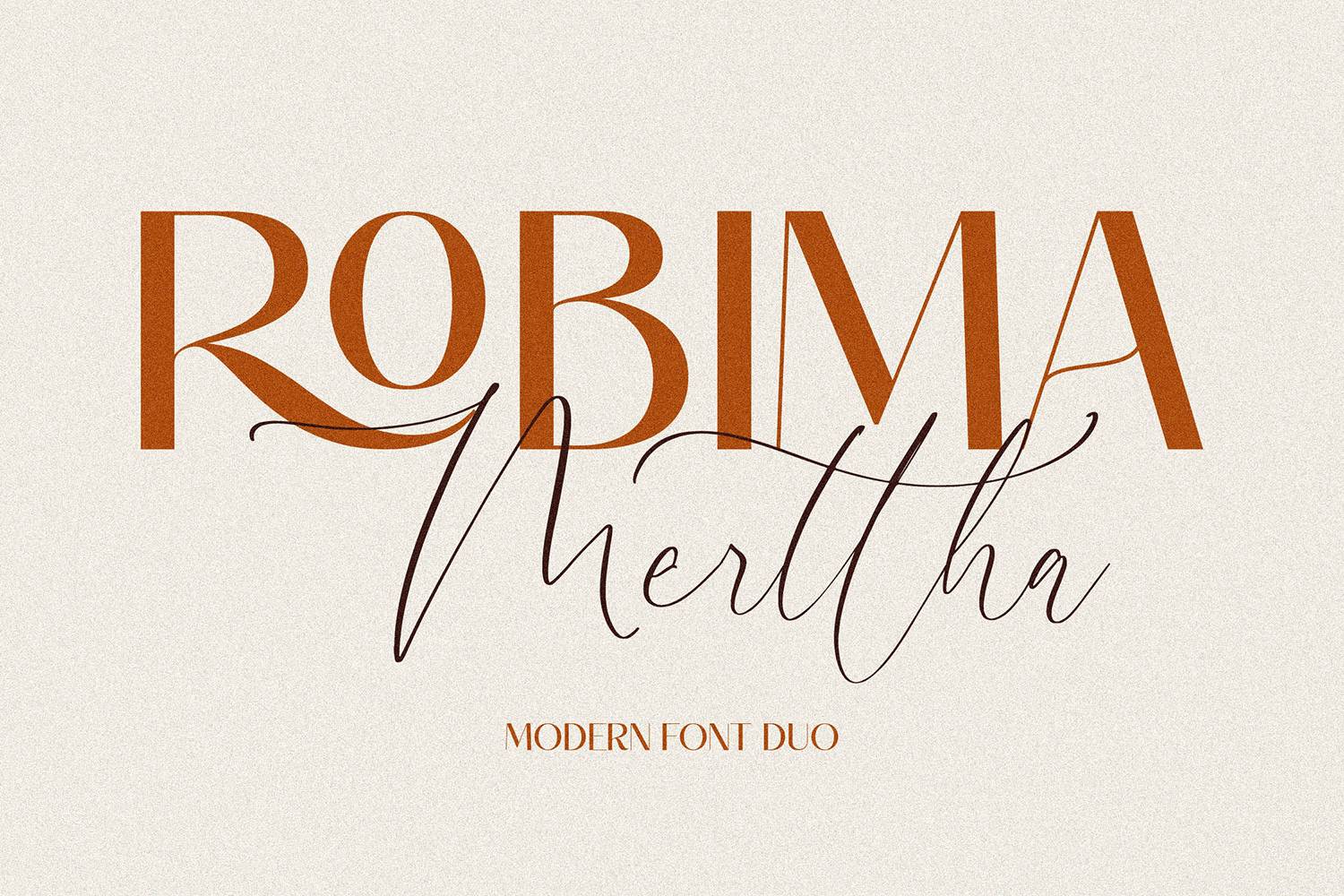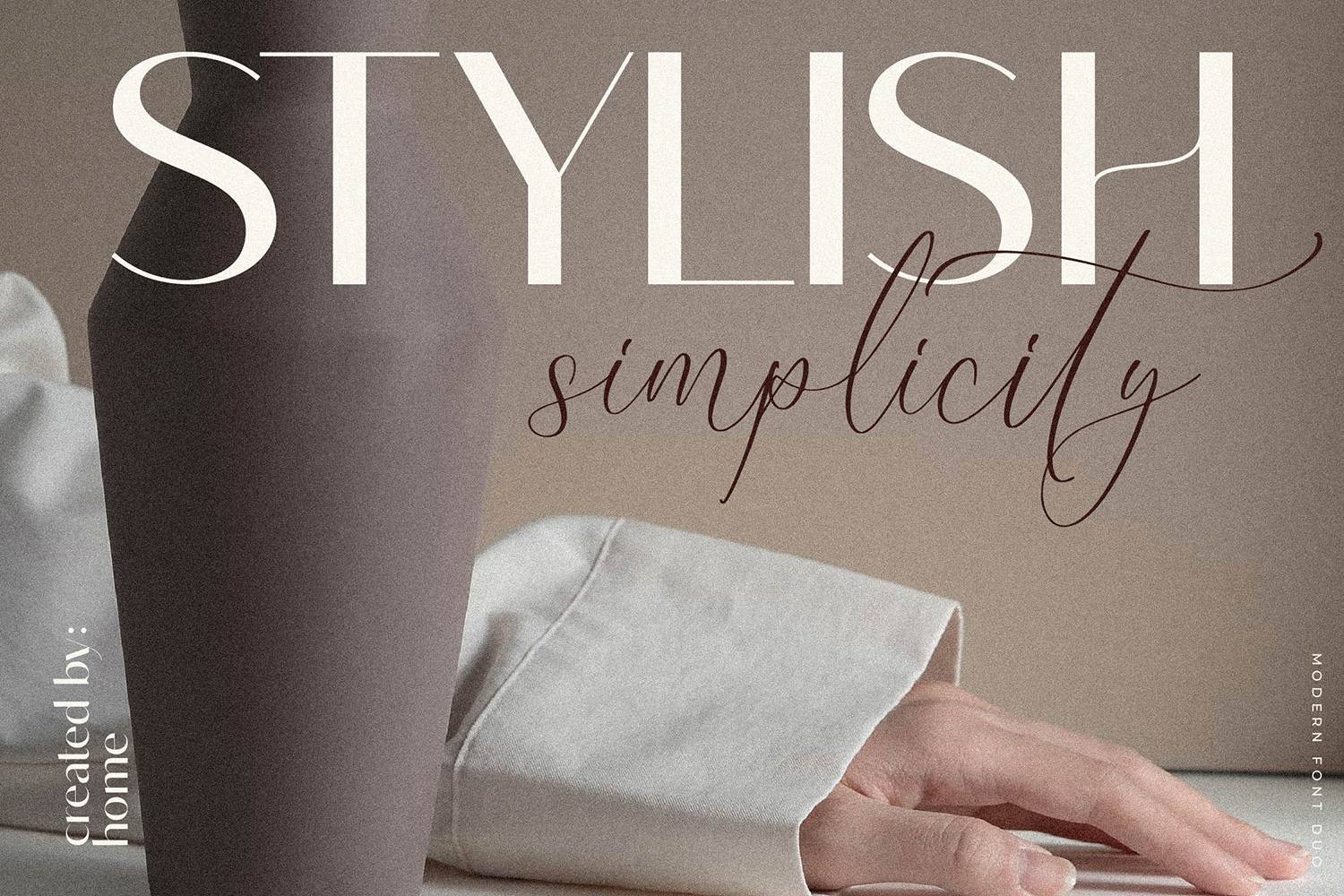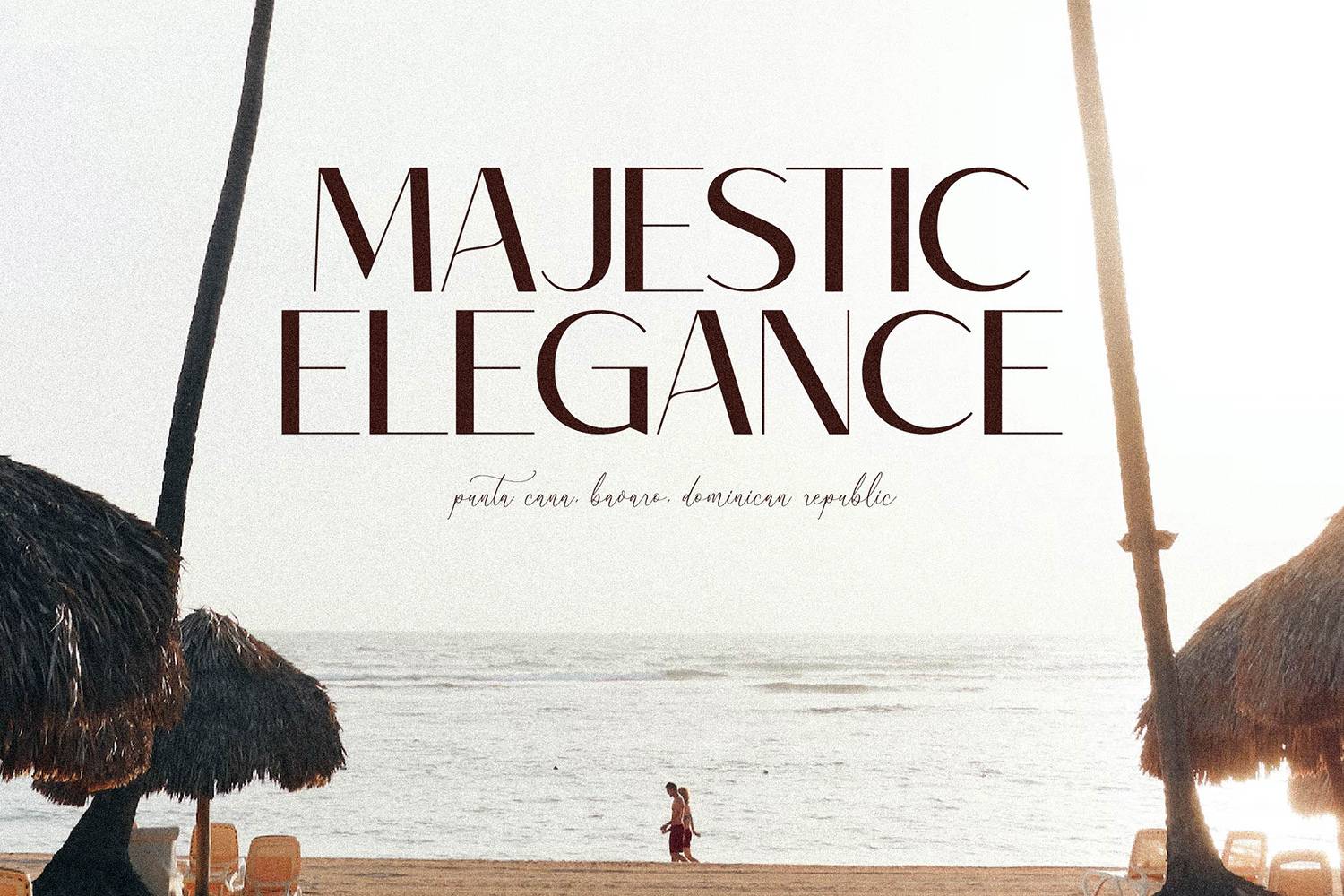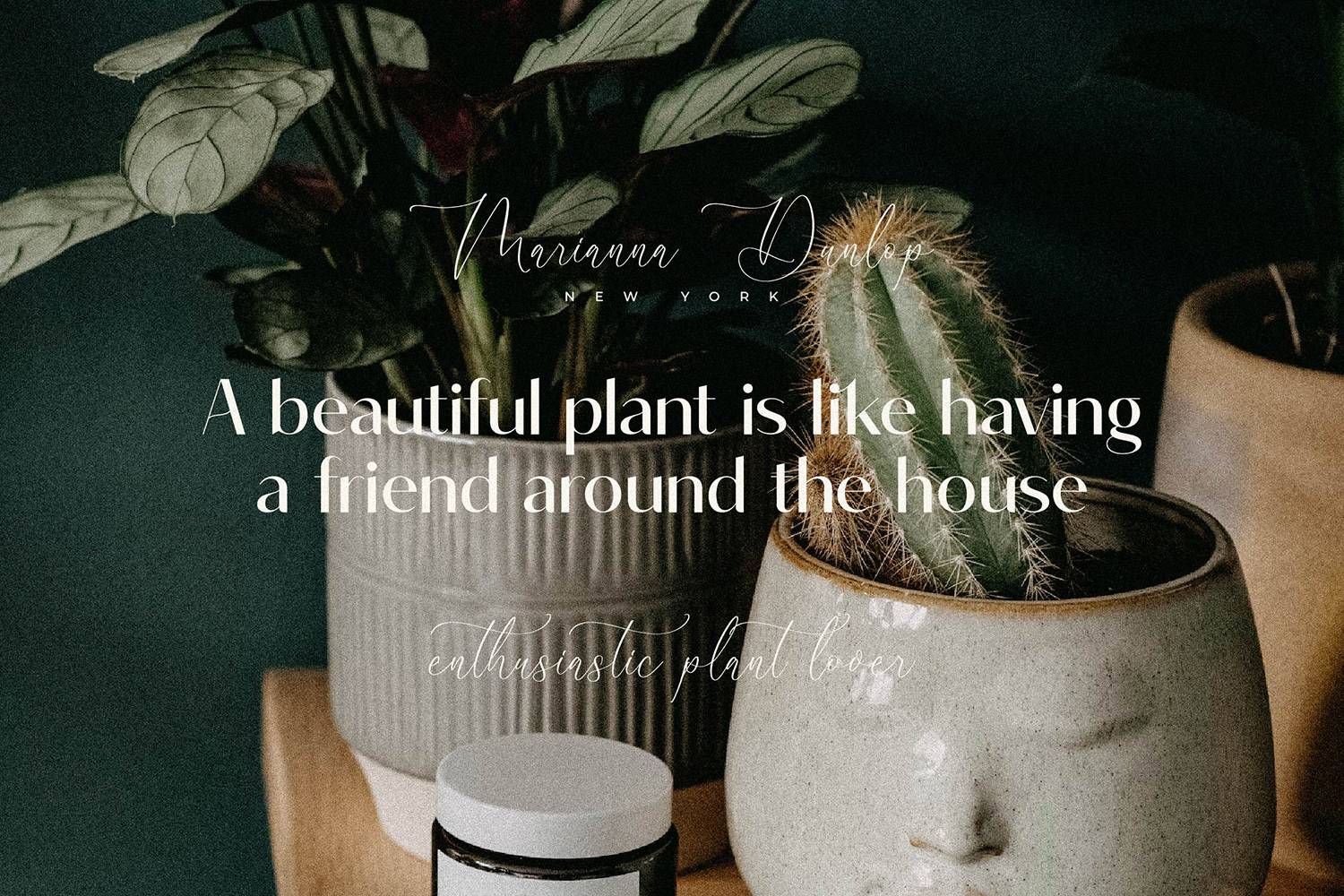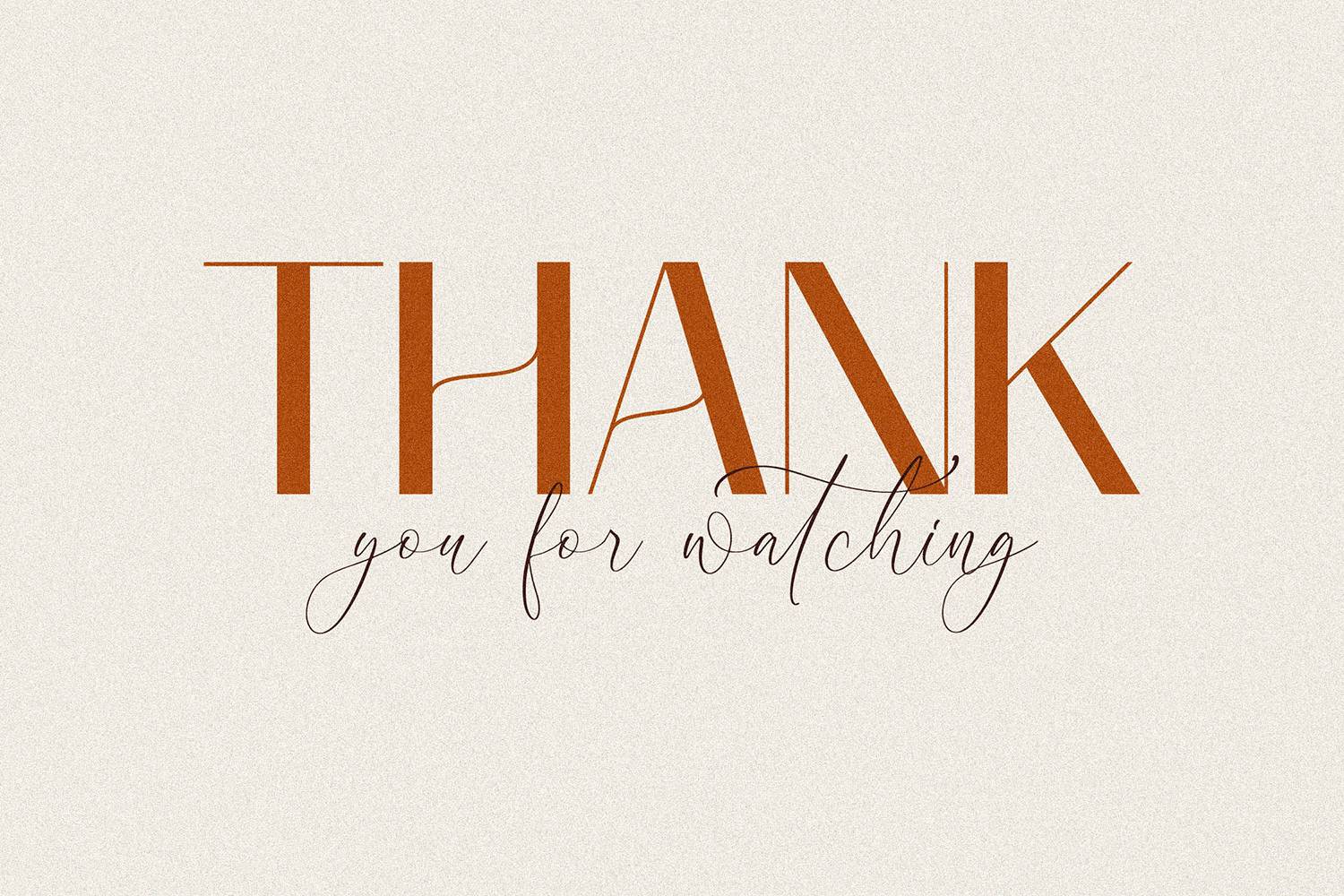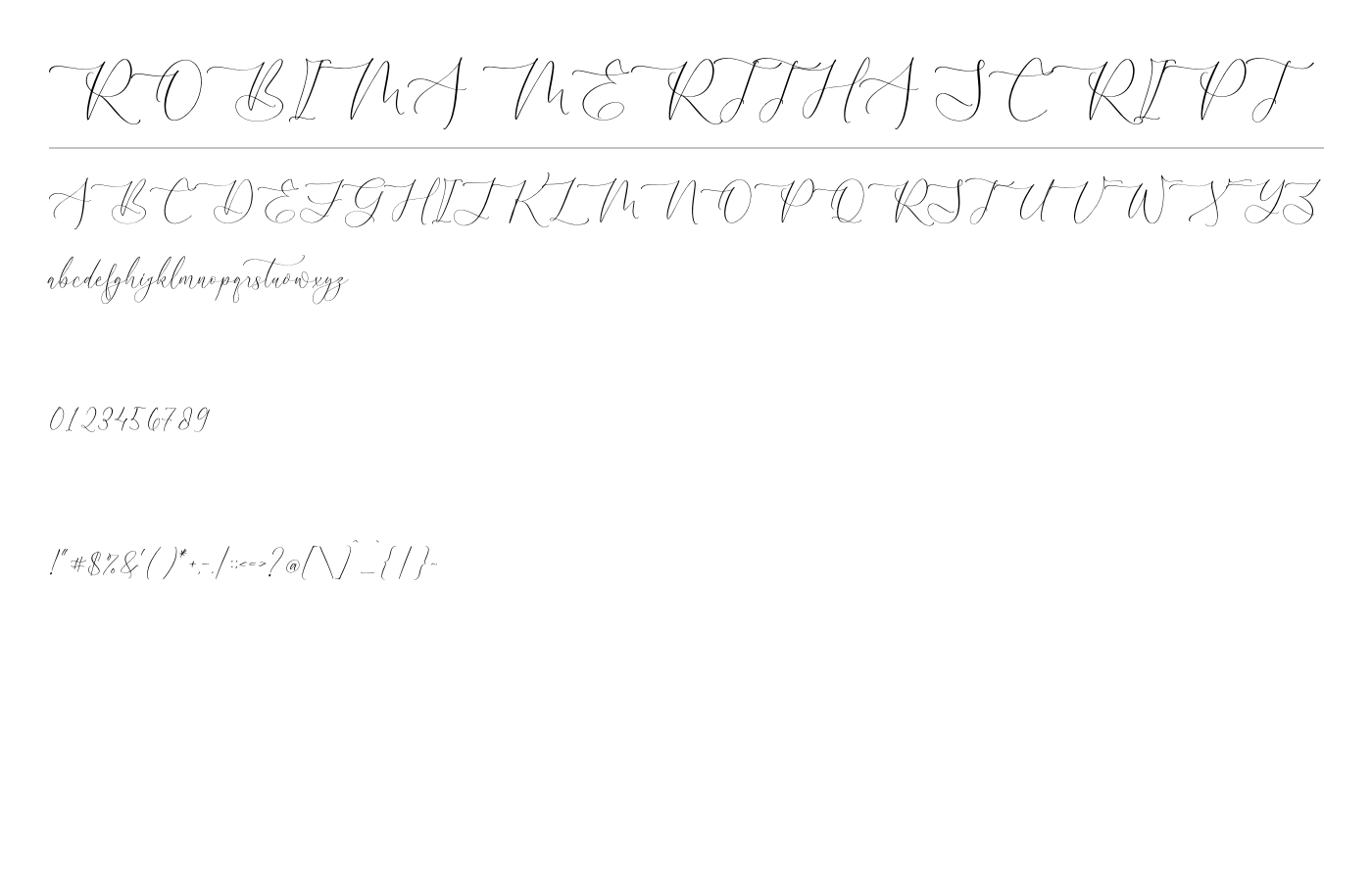
Robima Merttha is an elegant, delicate script font characterized by fine, flowing lines and graceful swashes that give it a sophisticated, handwritten feel. Its light weight and high contrast strokes make it perfect for luxury branding, wedding invitations, and stylish editorial designs where a refined and artistic touch is desired. This font excels in conveying a sense of romance and elegance, ideal for headline use in upscale or creative projects.
Robima Merttha Font
About Robima Merttha Font